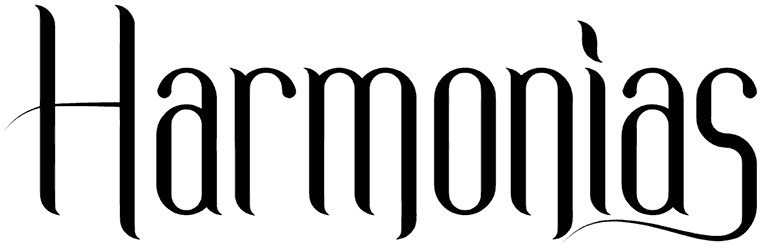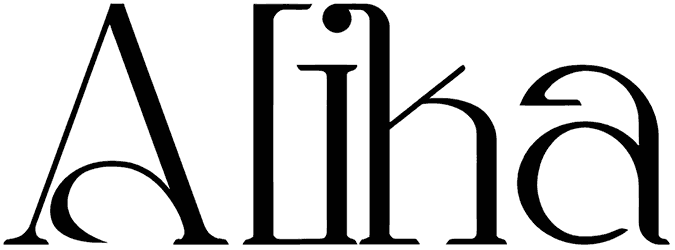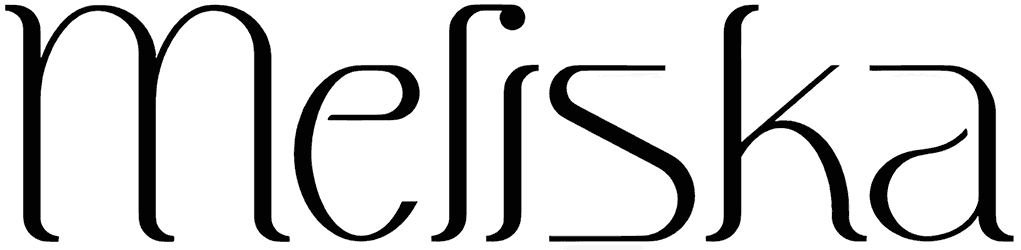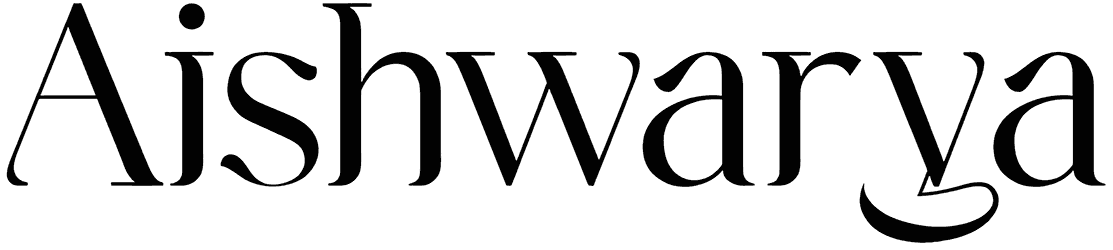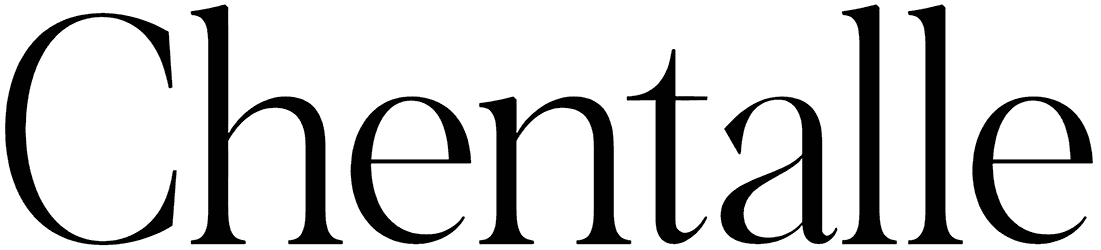
Nevrada Neue Font
Everybody loves a confident serif font like Nevrada Neue with its timeless and elegant design that makes for amazing logotypes and headlines. This font has certain luxurious lettering and curves that are extremely easy on the eyes.
Nevrada Neue – A Font by Aluyeah Studio
Bonjour! Nevrada Neue is a fashiontastic display font. This font was carefully crafted from bestseller font Nevrada and inspired by one of leading fashion brand in the world. In general, it creates a luxurious and elegant look in design.
Full version coming to you with 90+ luxury alternate to create a perfectly beautiful, classy, chic, elegant, glamorous and luxurious design.